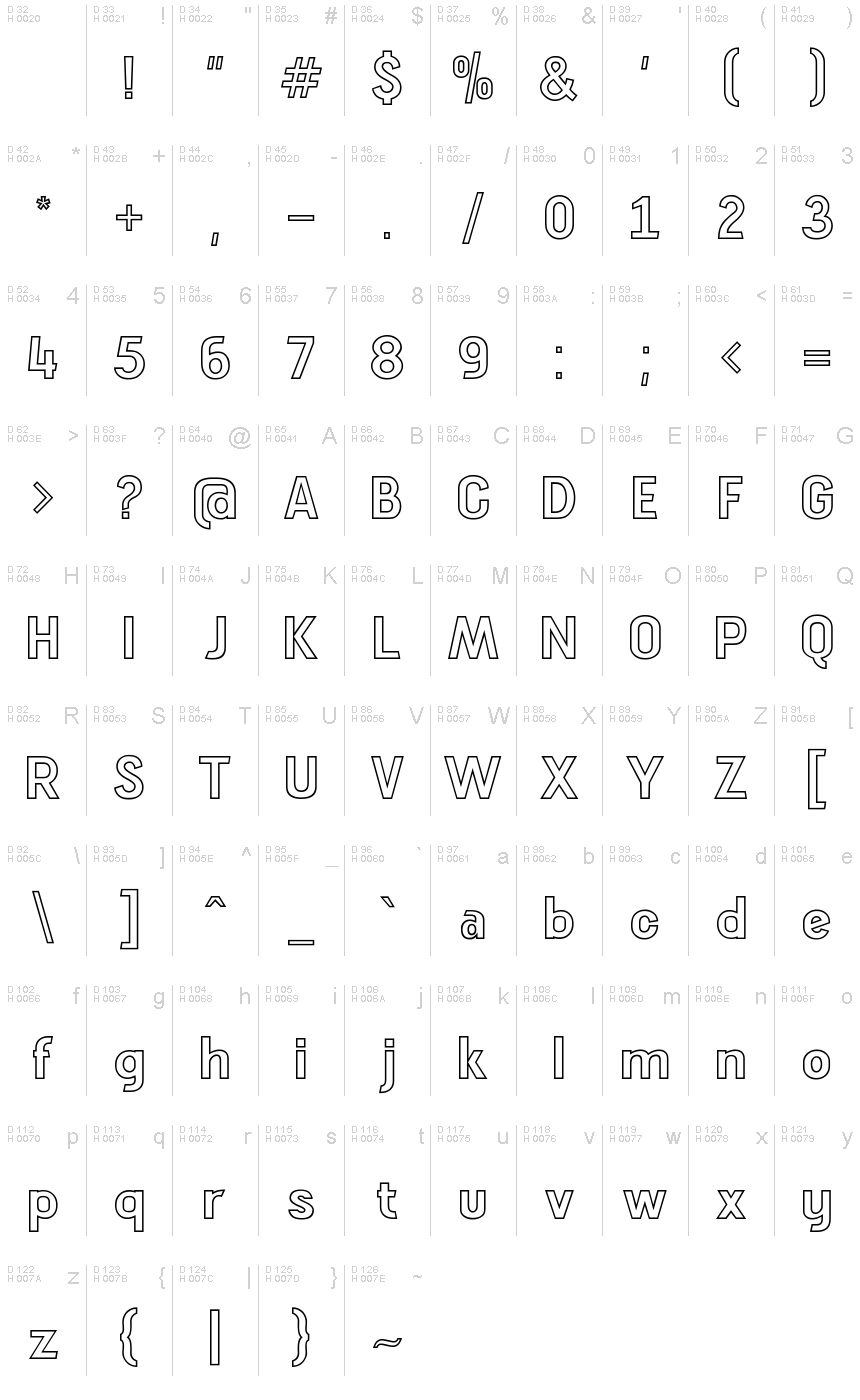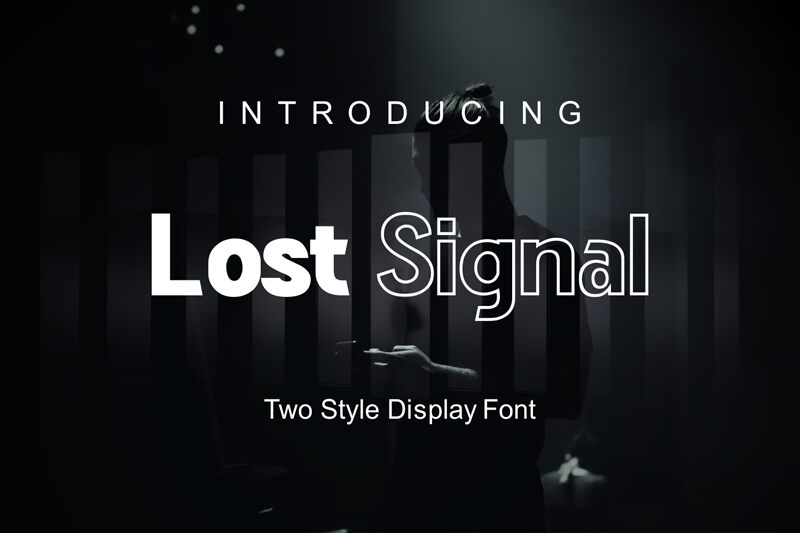
Lost Signal Medium
Lost Signal Medium, a captivating sans-serif font designed by Zamjump, exudes a sense of mystery and intrigue. Its outlined letterforms, evoking a faint signal from a distant transmission, create a striking visual impact. The font's bold yet elegant aesthetic lends itself to a range of design applications, from bold headlines to atmospheric branding. Its unique character infuses any project with a sense of subdued energy, inviting the viewer to delve deeper into the message.
This versatile font excels in showcasing a range of content, from eye-catching titles to body copy that demands attention. Its clean lines and balanced proportions make it an excellent choice for digital interfaces, print materials, and packaging designs. Whether in a sleek, minimalist layout or a more expressive, experimental composition, Lost Signal Medium captivates with its distinctive personality, making it a valuable addition to any designer's toolkit.